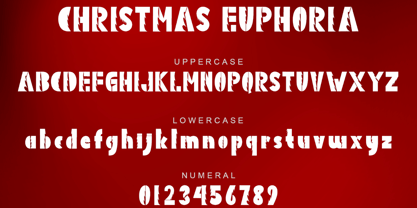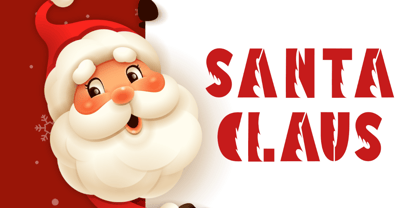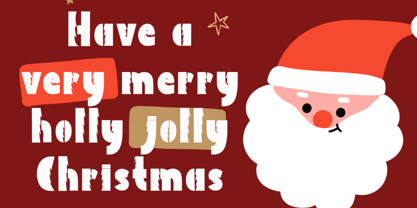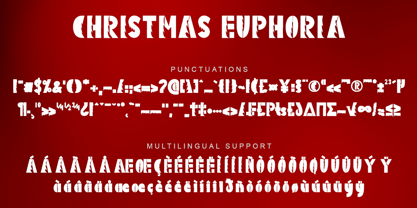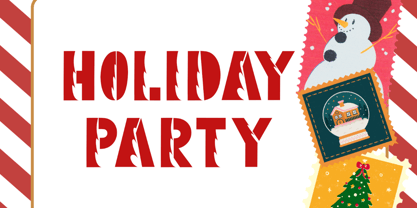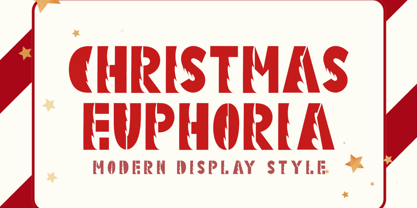
Christmas Euphoria
by Yoga Letter
The Christmas Euphoria Font Family was designed by Isroni Yoga Prasetya and published by Yoga Letter. Christmas Euphoria contains 1 styles. More about this family
"Christmas Euphoria" is a unique and elegant display font. This font is equipped with uppercase, lowercase, numeral, punctuations and multilingual support. It is very suitable for use for Christmas, summer, spring, 4th of July, banner, father's day, branding, sticker, poster, print, logo and others.
Designers: Isroni Yoga Prasetya
Foundry: Yoga Letter